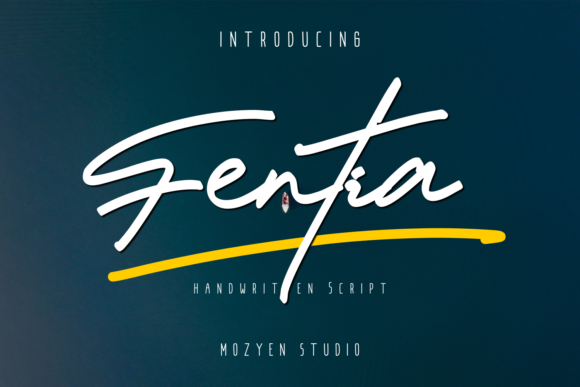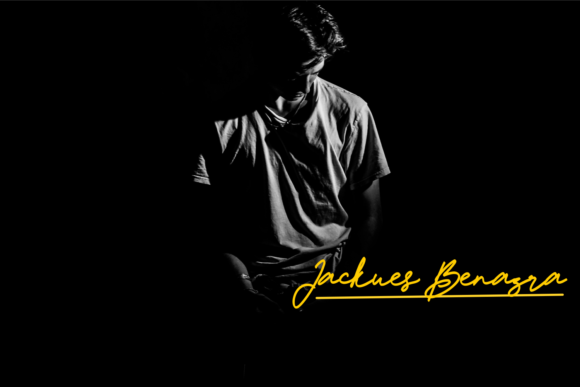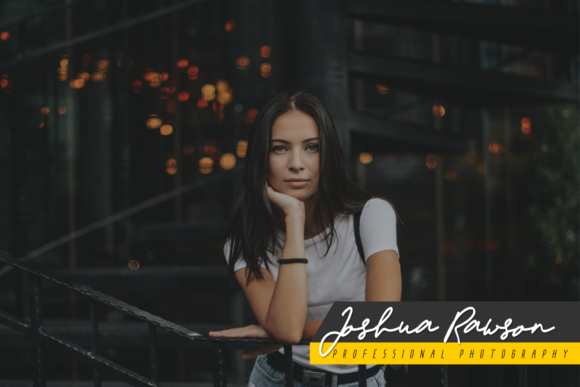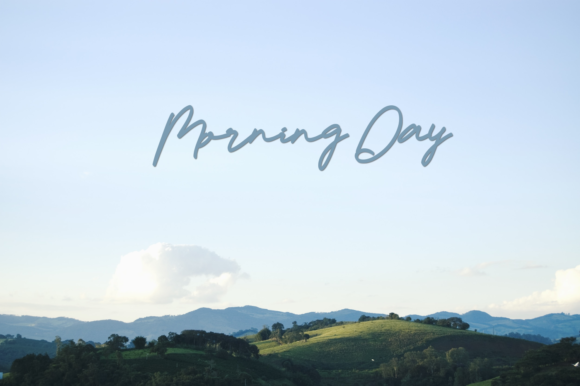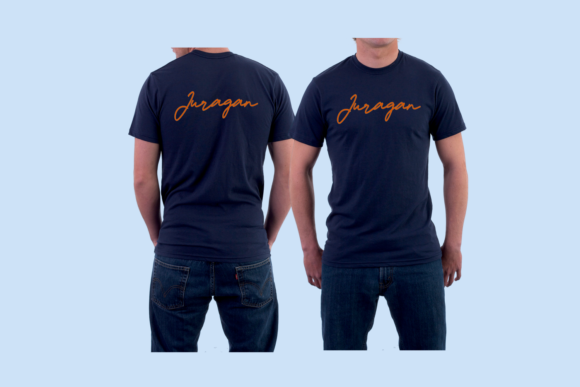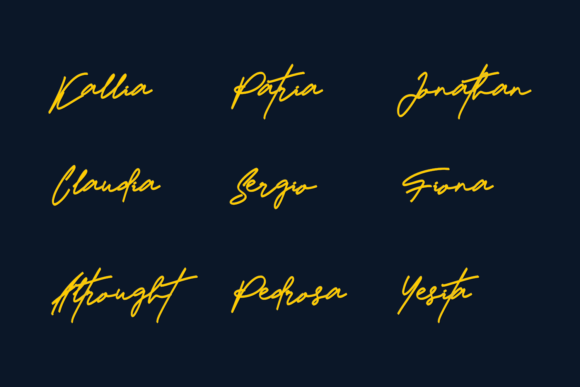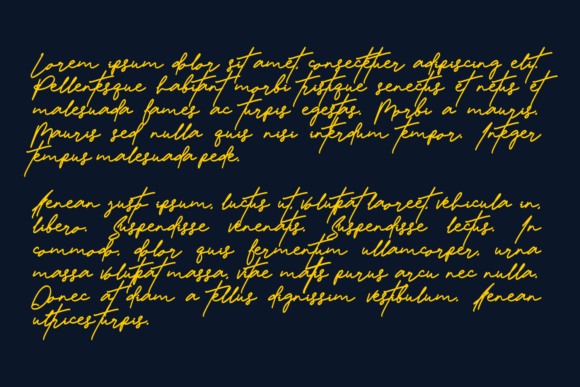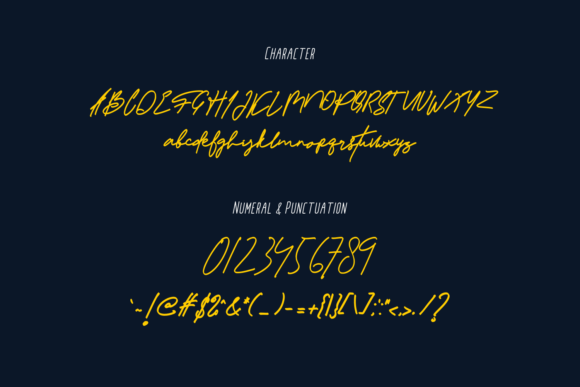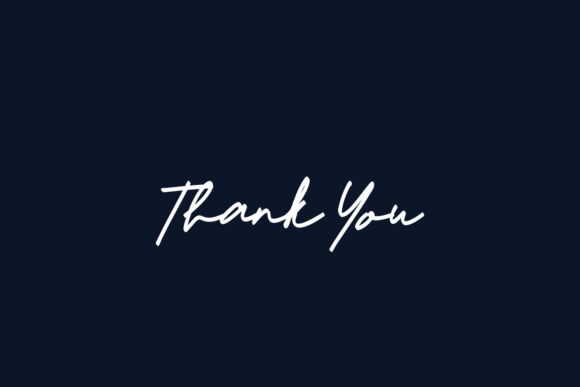
Fentia Font
About Fentia Font
Fentia embodies authenticity and luxurious. This enchanting script font will turn any creative idea into a true standout. Get creative with its childlike playfulness, and use it to brighten up any kids and school project!